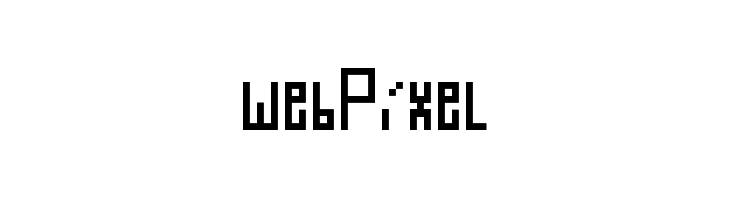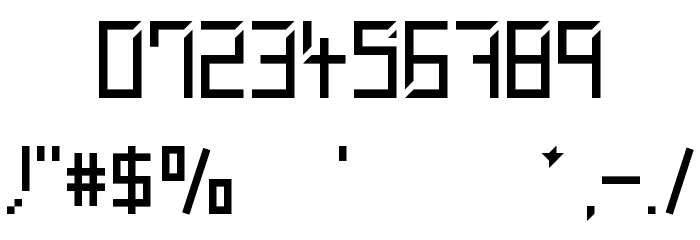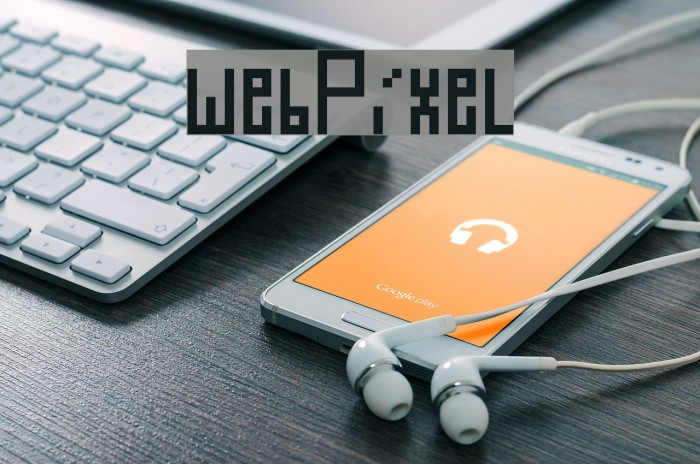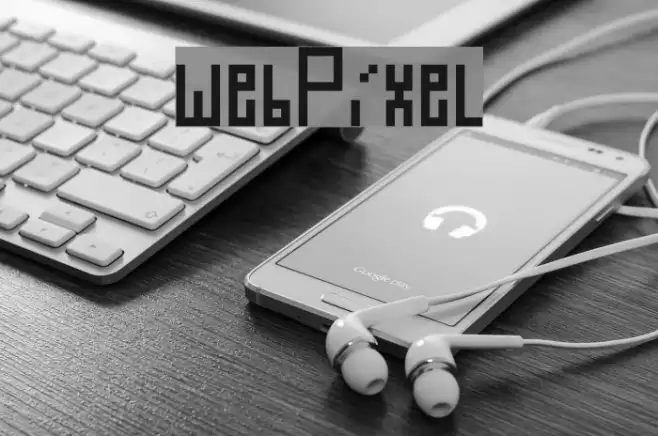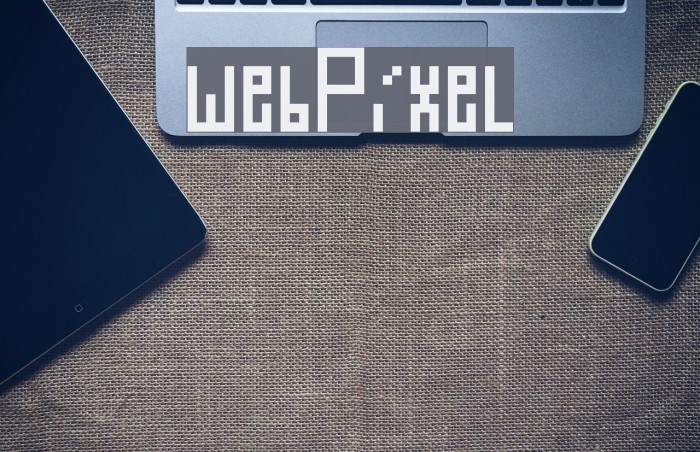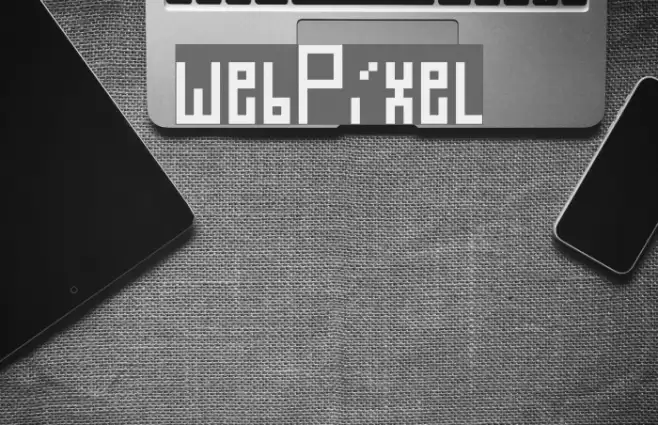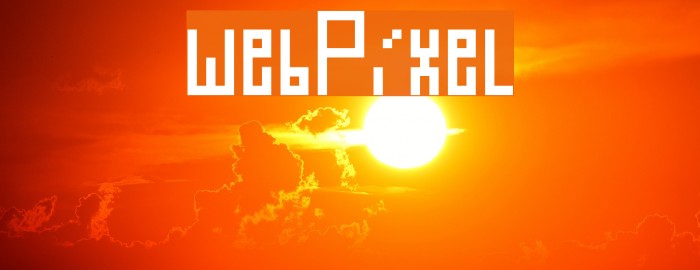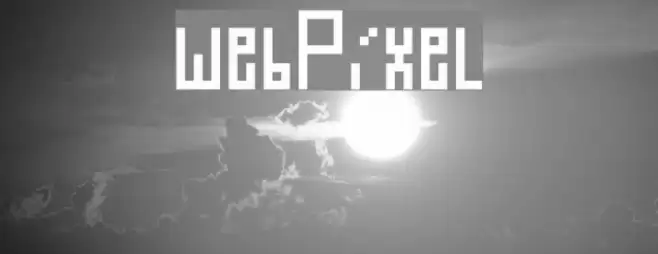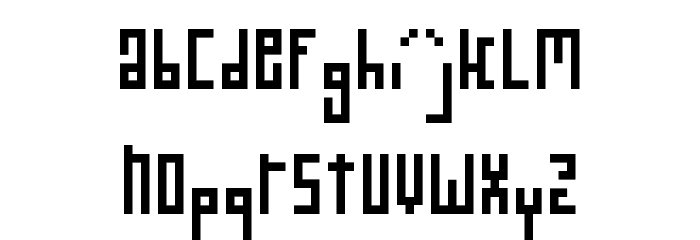
webPixel Font
webPixel Description
This font features a pixelated, blocky design reminiscent of early digital displays and retro video games. Each character is constructed with a grid-like precision, giving it a distinctly digital and geometric appearance. The uppercase and lowercase letters maintain a uniform height, enhancing its pixel-art style. The numerals and special characters follow the same design principles, ensuring consistency across all glyphs. This font's unique aesthetic makes it ideal for projects that aim to evoke nostalgia or a tech-inspired theme.
A pixelated, blocky font with a retro digital style from Uncategorized fonts.
- Proposed Projects: Ideal for retro video game graphics, tech-themed posters, digital art projects, and any design requiring a nostalgic digital feel.
- Overall Style: Retro, Digital